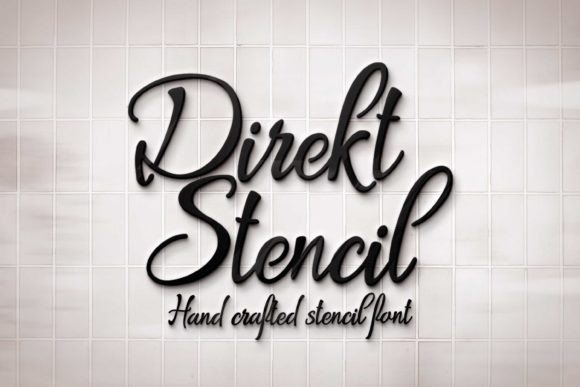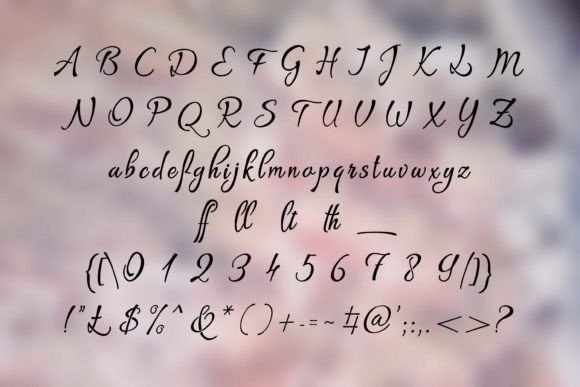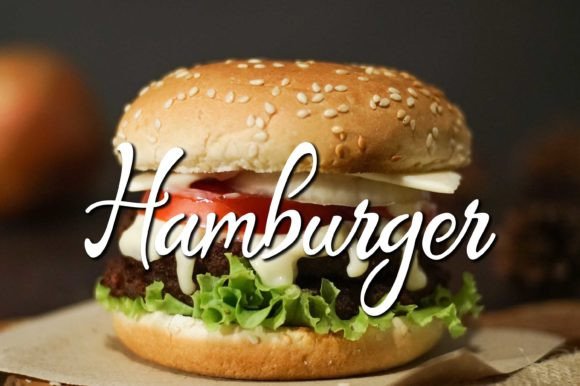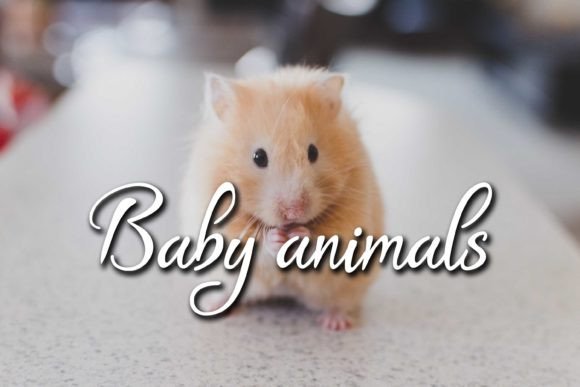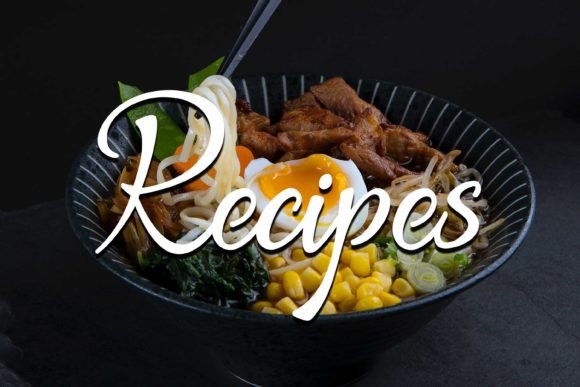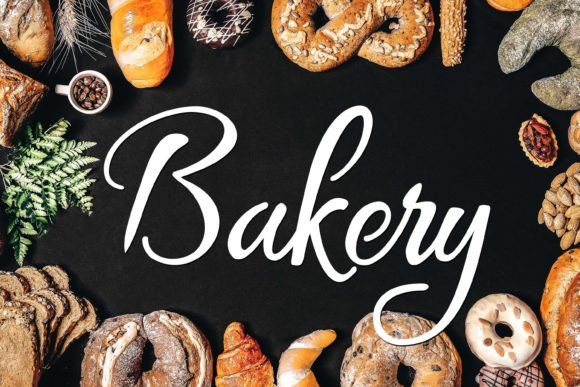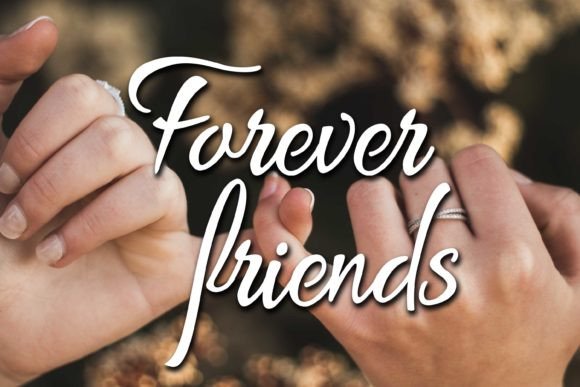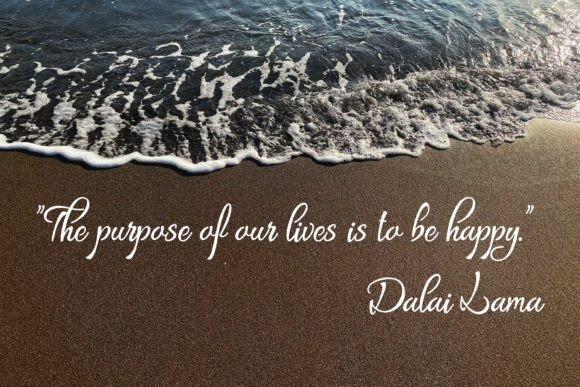
Direkt Stencil Font
About Direkt Stencil Font
Direkt Stencil is a an elegant script font with neat characters. It looks stunning on wedding invitations, thank you cards, quotes, greeting cards, logos, business cards and every other design which needs a handwritten touch.